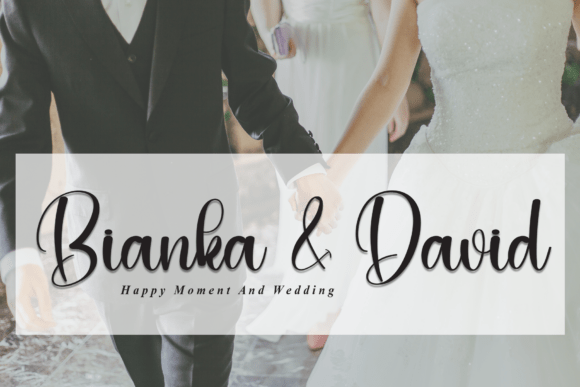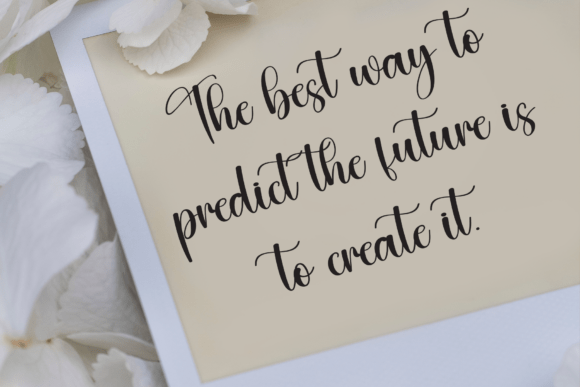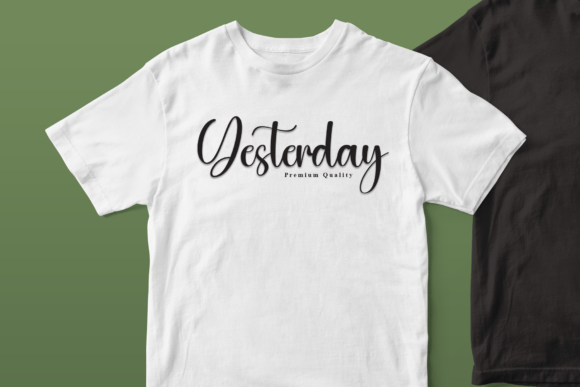
Introduction to Scottish Font
As a designer, there’s nothing quite like the thrill of stumbling upon a new font that sparks creativity and sets your imagination ablaze. For me, that moment came when I discovered the enchanting Scottish Font. Its elegant curves and smooth connections seemed to dance across the page, whispering tales of romance and refinement. I knew at once that I had to learn more about this captivating script font.
Whether you’re working on a wedding invitation, a logo, or a social media graphic, the Scottish Font is an exceptional choice. Its high-quality design makes it perfect for designers seeking a timeless, handwritten feel that elevates their creative projects. With its versatility and sophisticated charm, this font is an invaluable resource for anyone looking to add a touch of elegance to their work.
Key Features of Scottish Font
- Unique, hand-drawn design with a touch of Scottish charm, perfect for creative projects that require a distinctive look.
- Designed to be versatile and easy to use, making it an excellent choice for a wide range of creative projects, from logos to typography-based art.
Honest Review: Scottish Font
I recently stumbled upon the Scottish Font, and I must say it’s been a delightful addition to my design resources. The font itself is a beautiful representation of traditional Scottish typography, making it perfect for any creative project that requires a touch of heritage.
What works well about the Scottish Font is its high quality and versatility. It’s available for free download, which is a major plus for designers on a budget. The font’s transparent background makes it easy to overlay on any design, and its elegant script style adds a touch of sophistication to any creative project. ✨
Here are some of the key features I love about the Scottish Font:
- Elegant script style that adds a touch of sophistication
However, there are a few limitations to consider. The font may not be suitable for large-scale commercial use, and it’s not as extensive as some other font families. ⚠️
Overall, I’m thoroughly impressed with the Scottish Font. Its unique design and high-quality features make it a valuable addition to any designer’s toolkit. If you’re looking for a free, high-quality font for your creative project, I highly recommend giving the Scottish Font a try.
The Scottish Font is perfect for creating invitations, wedding stationery, and other formal events. It’s also great for adding a touch of elegance to business presentations and documents.